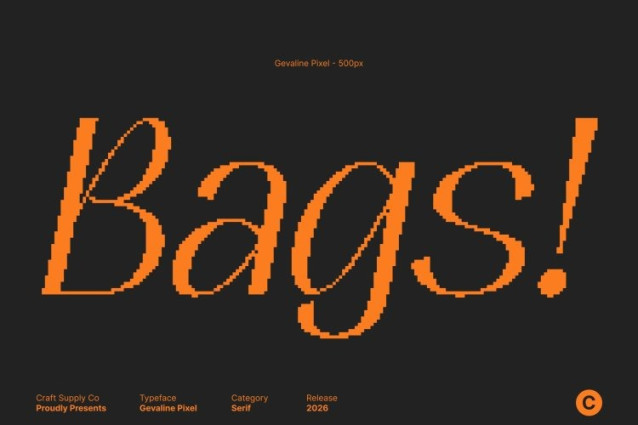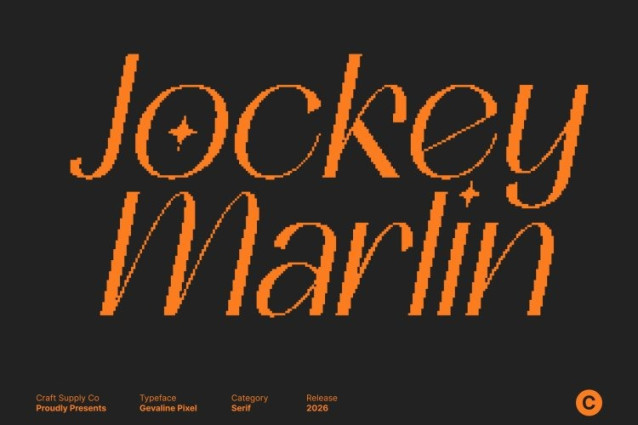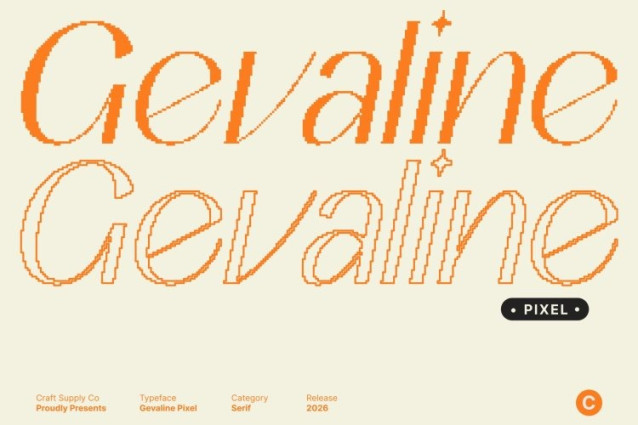
Gevaline Pixel Font
Gevaline Pixel Font This is a modern aesthetic sans serif font that features a high-contrast design translated into a refined pixel-based structure. It merges contemporary minimalism with graceful feminine strokes, creating a distinctive balance between softness and precision. The pixel construction adds a subtle retro-digital nuance while preserving elegance and visual clarity.
Minimalist Beauty with Digital Precision
Defined by clean lines, sharp pixel edges, and carefully measured curves, this font radiates minimalist beauty with a modern edge. Its bitmap structure enhances contrast and form, resulting in a sleek, sophisticated appearance that feels structured yet delicate perfect for designs that value simplicity and refined detail.
Feminine Strokes with a Retro Pixel Touch
Each letter is meticulously crafted with slender, feminine strokes adapted to a rigid pixel grid, infusing the font with grace, charm, and character. This unique combination allows to transition seamlessly across branding, editorial layouts, web design, and digital visuals. Whether used in a refined logo or an elegant magazine spread, it enhances visual harmony while standing out with subtle originality.
Captivating Elegance for Contemporary Design
This font captivates through understated elegance and timeless appeal, enriched by a modern-retro pixel aesthetic. Ideal for logos, fashion branding, beauty products, social media graphics, and web interfaces, it elevates every composition with femininity, sophistication, and a memorable digital charm.